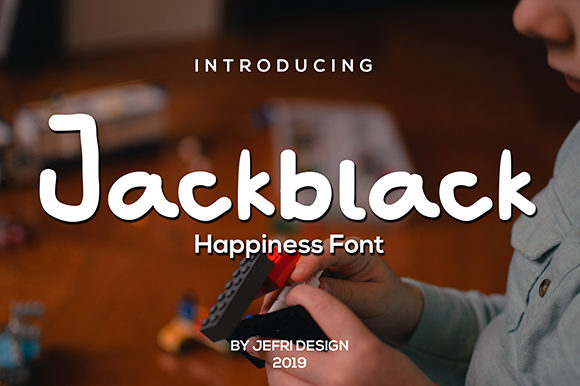
Welcome to the whimsical world of Jackblack, where letters dance and play, bringing joy and imagination to your designs. This delightful display font, crafted by the talented Bluestype Studio, is a feast for the eyes, bursting with childlike wonder and boundless creativity.
Jackblack is not just a font; it's an invitation to let loose, embrace your inner child, and add a splash of playful charm to your projects. Its vibrant, hand-drawn characters exude a sense of warmth and innocence, making it perfect for designs that target young audiences or aim to evoke a sense of nostalgia.
With Jackblack, you can create enchanting invitations for birthday parties, design cheerful posters for school events, craft heartwarming greeting cards for loved ones, or add a touch of magic to your social media posts. Its playful curves and endearing details will transform any text into an eye-catching spectacle, guaranteed to capture attention and leave a lasting impression.
But Jackblack's versatility doesn't end there. Its bold, expressive style also shines in branding and marketing materials, helping businesses stand out from the crowd and attract customers with its unique and memorable aesthetic. Whether you're designing logos, brochures, flyers, or website banners, Jackblack will add a touch of whimsy and professionalism, making your brand shine.
So, dive into the realm of Jackblack and let your creativity soar. With its captivating charm and endless possibilities, this font will transform your designs into captivating masterpieces, leaving your audience smiling and delighted. Unleash your imagination and experience the joy of Jackblack today!